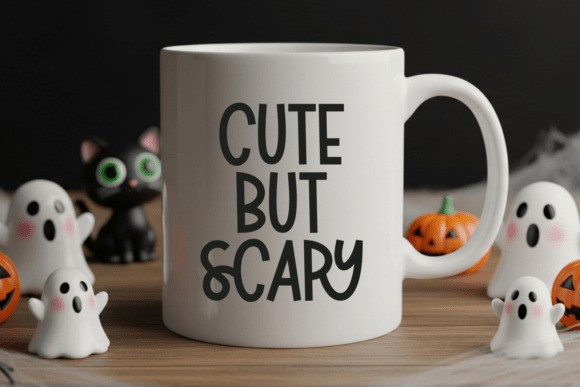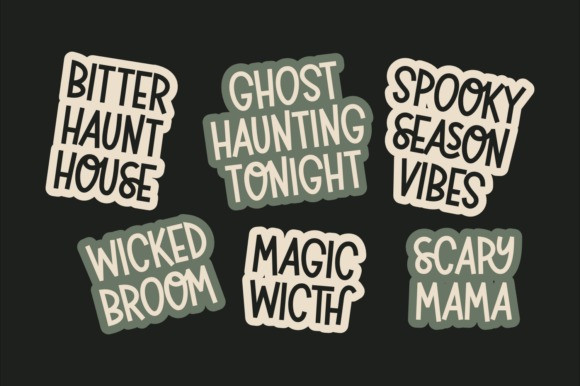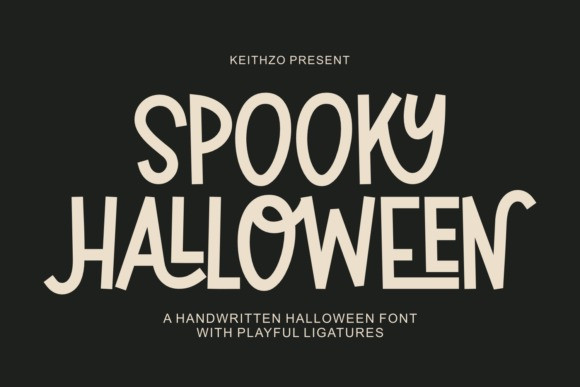
Spooky Halloween Typeface
Spooky Halloween Typeface is a delightfully eerie yet approachable display font crafted to capture the playful thrills and spooky cheer of the Halloween season. With its simple, bold letterforms and subtle quirky details, this typeface strikes the perfect balance between festive and frightful. Whether you’re designing t-shirts, stickers, greeting cards, treat bags, or other Halloween-themed creations, Spooky Halloween adds just the right dose of personality and charm. Optimized for Cricut and Sublimation machines, it’s incredibly easy to use across DIY and digital platforms. Its built-in ligature features open the door to unique, seamless designs that stand out with chilling style. From haunted party invites to spooky merch, this font transforms ordinary designs into wickedly fun masterpieces. Let your imagination go bump in the night—Spooky Halloween is your ultimate creative companion.